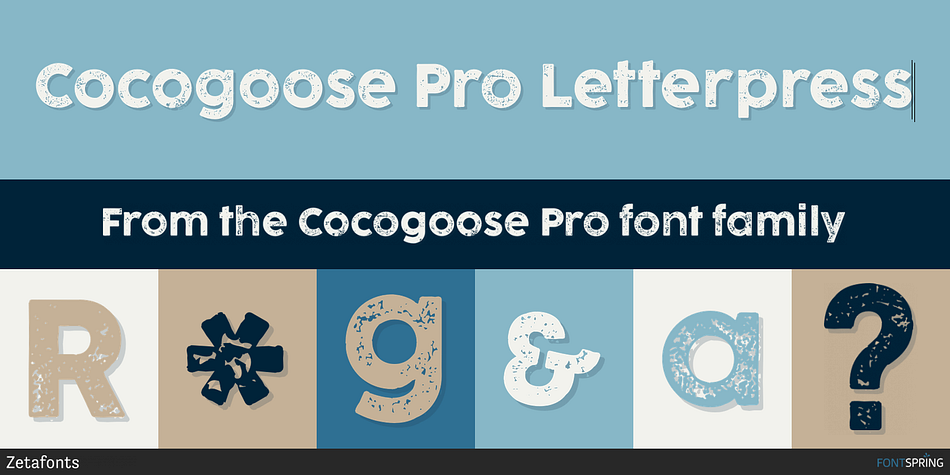
Cocogoose Pro Letterpress
Designed by Cosimo Lorenzo Pancini, Andrea Tartarelli, Francesco Canovaro and Mario De Libero, Cocogoose Pro is a display sans and sans serif font family. This typeface has twenty-seven styles and was published by Zetafonts.
Designed by Cosimo Lorenzo Pancini in 2013, Cocogoose was first expanded in 2015 with the help of Francesco Canovaro who co-designed the decorative display weights and Andrea Tartarelli who developed the condensed widths. In 2020 a full redesign of the typeface has been published: Cocogoose Pro now includes new widths, weights, open type features and characters, thanks to the help of Mario De Libero.
Influenced by vernacular sign-painting and modernist ideals, Cocogoose is drawn on a classic geometric sans skeleton, softened by rounded corners and slight visual corrections. Its very low contrast, dark color and tall x-height make it a solid choice for all designers looking for a powerful display typeface for logos, headings and vintage-inspired branding. The tall x-height makes texts set in Cocogoose very readable even at small sizes, while the bold regular weight allows for maximum impact when used as a branding, signage or decorative typeface.
Cocogoose Pro was designed as a highly reliable tool for design problem solving, and given all the features a graphic designer needs, starting from its wide range of widths and weights. Its 2000+ latin, cyrillic and greek characters make sure it covers over 200 languages worldwide, while its comprehensive set of open type features allows faultless typesetting thanks to small capitals, positional numbers & case sensitive forms. A wide range of alternate letterforms, developed along nine different stylistic sets, gives you an extra level of design fine-tuning. The layerable and color-ready display variants include inline, outline, shadow and a letterpress version that can simulate the effect of old print, also thanks to programmed randomization of its letters.
Cocogoose Pro has been completely re-engineered in 2020 to include extra features and technologies. A variable font version allows you to fine tune precisely the appearance of the text while minimizing download size on the web. A darkmode weight range has been added to the whole family, to keep consistency of effect when the typeface is used in reverse on the web and in dark mode interfaces. Also, a new text subfamily has been developed for body text usage, to keep the look and feel of Cocogoose while maximizing readability on screen and on the printed page.
Style Letterpress
Designers Cosimo Lorenzo Pancini, Andrea Tartarelli, Francesco Canovaro, Mario De Libero